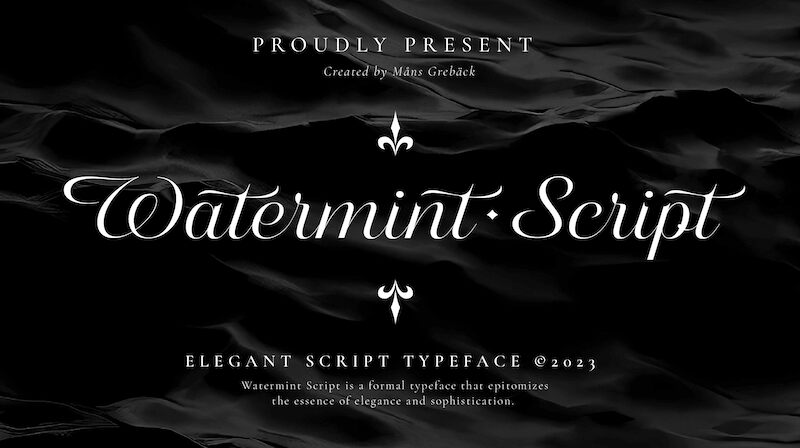
Watermint Script, designed by the talented Mans Greback, is a semi-light calligraphy font that seamlessly blends traditional charm with contemporary finesse. This formal typeface stands out with its elegant and sophisticated curves, making it an impeccable choice for high-end branding, wedding invitations, and upscale advertising materials.
The gentle yet precise strokes of Watermint Script reflect a handcrafted quality that adds a personal touch to any project. Its aesthetic appeal lies in the balance between its delicate weight and the flowing continuity of its characters. Each letter is crafted to ensure readability while maintaining an artistic flair.
Ideal for designers who wish to impart an air of exclusivity and grace to their work, Watermint Script promises versatility across various creative endeavors. Whether you're aiming to elevate printed media or enhance digital presentations, this typeface offers a touch of class that can transform the ordinary into the extraordinary.